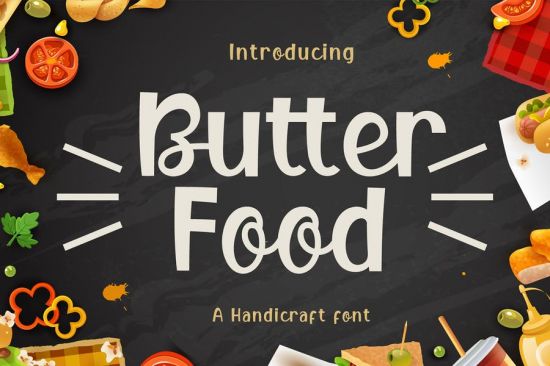
**Butter Food is a display font handicraft. **These fonts can be used for products such as food banners, restaurants, handicrafts, product packaging, quotes, product designs, craftsmen, labels, photography, watermarks, logos & branding. Everything can be accessed using software that supports Opentype, such as Adobe Indesign, Adobe CS Illustrator, Adobe Photoshop CC, and Corel Draw.